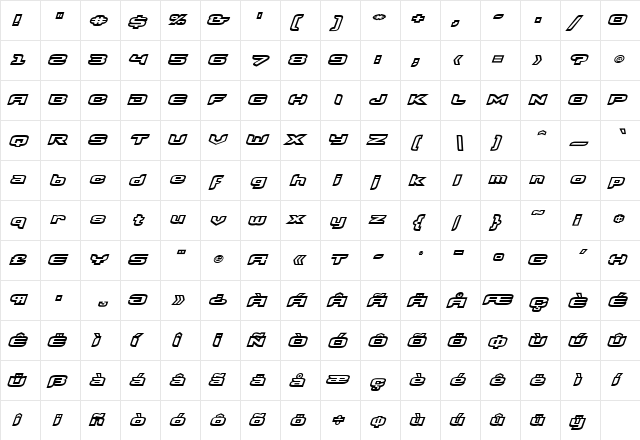
Megahertz Italic
Design Context for Megahertz Typeface
Megahertz is a composed and adaptable typeface that performs quietly and consistently across a wide range of design contexts. The dynamic lean of this cut emphasises speed and emphasis in any layout.
Pro Tip: Use Megahertz for emphasis, pull quotes, and subheadings where its slanted energy can add rhythm to the layout.